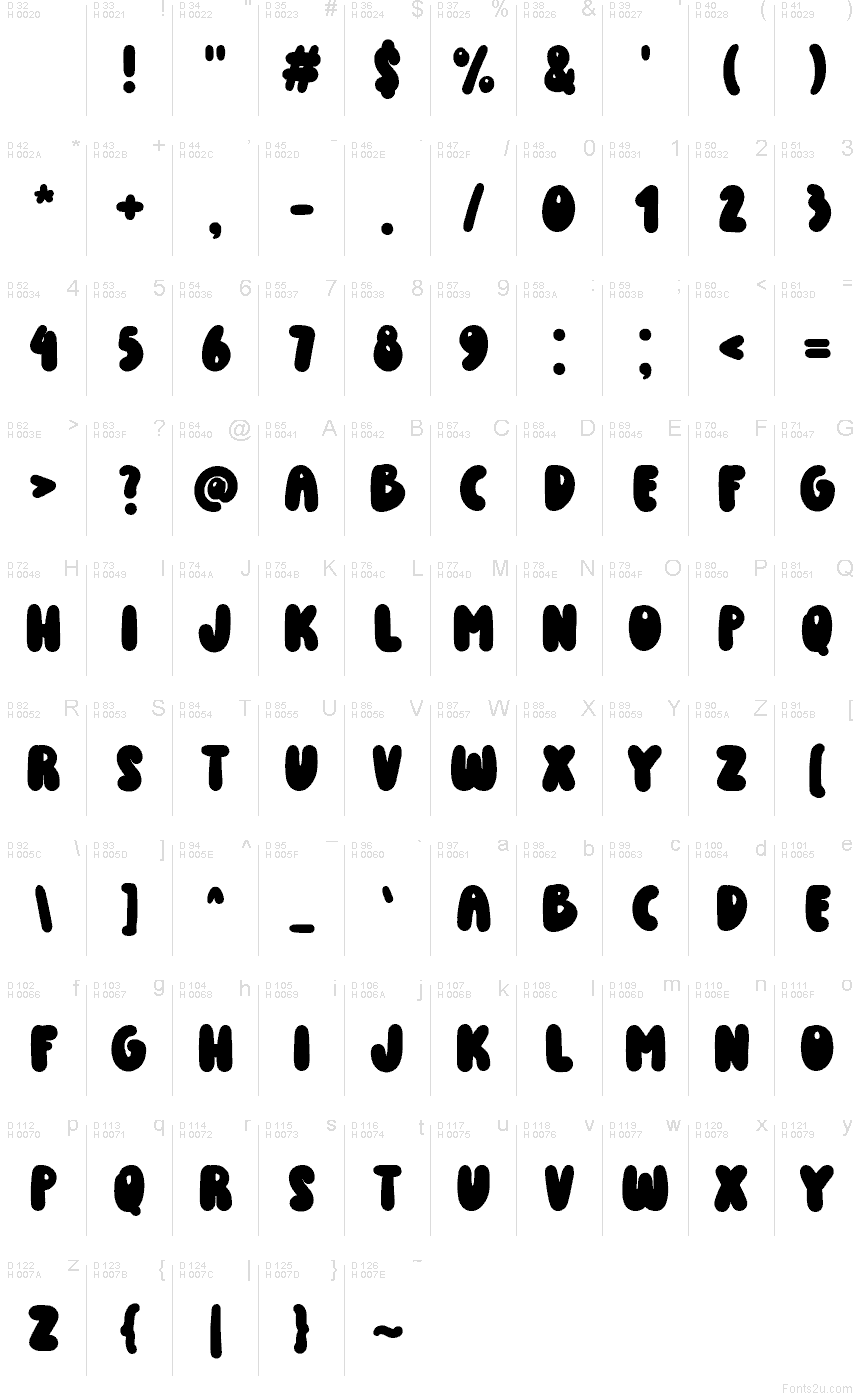
Goldy Boldy
Goldy Boldy font by DM Letter Studio - Dimas Prasetyo is a free cartoon display typeface with squishy, ink-heavy letters that feel like they’ve been drawn with a fat marker. The chunky, rounded shapes and slightly uneven rhythm give it that bouncy, Saturday-morning energy—loud, friendly, and impossible to ignore. It reads clearly even at a distance, so your words land with a cheerful thud rather than getting lost in the background.
Using Goldy Boldy, you can instantly dial up the fun for kids’ book covers, birthday invitations, toy packaging, YouTube thumbnails, game titles, and playful branding. This free font works beautifully in big, punchy headlines, while a simple, clean sans-serif in smaller text makes a great supporting partner.